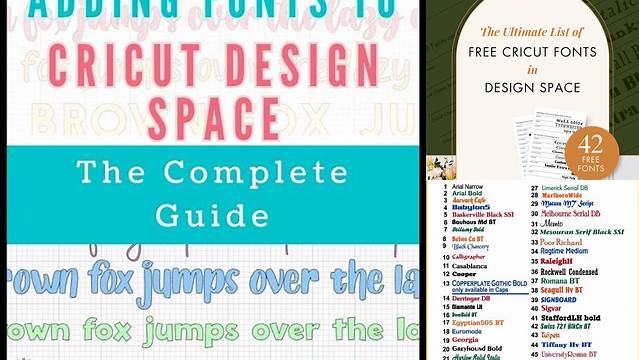
Cricut Design Space Fonts: A Complete List & Guide
Hey crafters! Ever wondered about the massive list of fonts available on Cricut Design Space? Well, buckle up, because we're diving deep into the world of Cricut fonts! Whether you're a newbie just starting out or a seasoned pro, understanding your font options is key to creating stunning projects. This guide will walk you through everything you need to know, from system fonts to Cricut Access fonts, and even how to upload your own. Let's get crafty, guys!
Understanding System Fonts in Cricut Design Space
So, what are system fonts? These are fonts already installed on your computer or device. When you open Cricut Design Space, it automatically detects these fonts and makes them available for your projects. The beauty of system fonts is that they are usually free, as you already own them! Now, let's talk about making the most of these fonts. First, consider the theme of your project. Are you creating a birthday card? A sleek, modern design? Or something whimsical? Choose a font that matches the tone. Experiment with different font pairings – sometimes a combination of a bold header font with a simpler body font can create a visually appealing contrast. Think about readability. While a super fancy script font might look gorgeous, if it's hard to read, it won't be effective. And finally, don't be afraid to get creative with font sizes, spacing, and alignment. A little tweaking can go a long way in making your design stand out. System fonts are your trusty sidekick – always there and ready to use!
Exploring Cricut Access Fonts
Best Script Fonts on Cricut Design Space
Looking for that elegant touch? Let’s dive into the best script fonts on Cricut Design Space. Script fonts are perfect for adding a touch of sophistication and personality to your projects. Whether you're creating wedding invitations, personalized gifts, or decorative home decor, a beautiful script font can make all the difference. Some popular options include "Samantha Script," "Great Vibes," and "Lavanderia." These fonts feature flowing lines, delicate curves, and a handwritten feel that adds charm to any design. When choosing a script font, consider the overall aesthetic you're going for. A formal script font is ideal for elegant occasions, while a more casual script font is perfect for everyday projects. Also, pay attention to the spacing between letters – a well-spaced script font is easier to read and looks more polished. Experiment with different script fonts to find the perfect one for your project, and don't be afraid to mix and match script fonts with other font styles for a unique and eye-catching design. With the right script font, you can transform your projects from ordinary to extraordinary!
Top Sans-Serif Fonts for Cricut Projects
Okay, guys, let's switch gears and talk about top sans-serif fonts for Cricut projects. Sans-serif fonts are known for their clean, modern look, making them a versatile choice for a wide range of projects. Unlike serif fonts, which have small decorative strokes at the ends of the letters, sans-serif fonts have a more streamlined appearance. Some popular sans-serif fonts on Cricut Design Space include "Arial," "Helvetica," and "Roboto." These fonts are easy to read, making them ideal for text-heavy projects such as labels, signs, and banners. When choosing a sans-serif font, consider the overall style of your project. A bold sans-serif font is great for making a statement, while a lighter sans-serif font is perfect for a more subtle look. Experiment with different font weights and sizes to create visual interest, and don't be afraid to mix and match sans-serif fonts with other font styles for a unique and dynamic design. With the right sans-serif font, you can create projects that are both stylish and functional!
How to Pair Fonts in Cricut Design Space
Font pairing can be tricky, but don't worry, guys – I'm here to help! The key is to create contrast while maintaining harmony. Start by choosing a dominant font for your headers or titles. This should be a font that grabs attention and reflects the overall style of your project. Then, select a secondary font for your body text. This should be a font that is easy to read and complements the dominant font. A common technique is to pair a bold sans-serif font with a more delicate script font, or vice versa. You can also pair fonts from the same font family – for example, using a bold version of a font for the header and a regular version for the body text. When in doubt, keep it simple. A clean and minimalist font pairing is often more effective than a busy and cluttered one. Experiment with different font combinations until you find one that you love, and don't be afraid to break the rules and create your own unique style! With a little practice, you'll become a font pairing pro in no time!
Using Font Filters in Cricut Design Space
Let's talk about using font filters in Cricut Design Space. These filters are your best friend when you're trying to narrow down your font choices. You can filter by font type (such as script, sans-serif, or serif), by style (such as bold, italic, or condensed), and even by language. This makes it easy to find the perfect font for your project, no matter what you're looking for. For example, if you're creating a vintage-style project, you can filter by "vintage" or "retro" to find fonts that match the theme. Or, if you're creating a project in a specific language, you can filter by language to find fonts that support the characters and glyphs you need. The font filters in Cricut Design Space are a powerful tool that can save you time and help you create stunning designs. So, next time you're feeling overwhelmed by the sheer number of fonts available, remember to use the filters to narrow down your options and find the perfect font for your project!
Kerning and Letter Spacing in Cricut Design Space
Kerning and letter spacing in Cricut Design Space can make a HUGE difference in how your text looks. Kerning refers to the space between individual letters, while letter spacing refers to the overall space between all letters in a word or phrase. Adjusting these settings can improve readability and make your text look more polished. In Cricut Design Space, you can adjust kerning and letter spacing using the font editing tools. Experiment with different settings to find the perfect balance for your font. Some fonts may require more kerning or letter spacing than others, so it's important to use your eye and make adjustments as needed. For example, script fonts often require more kerning to prevent letters from overlapping, while sans-serif fonts may benefit from a little extra letter spacing to improve readability. By mastering kerning and letter spacing, you can take your text designs to the next level and create projects that look professional and polished!
Commercial Use Fonts: What You Can and Can't Do with Cricut Fonts
This is super important, guys! Let's break down commercial use fonts: what you can and can't do with Cricut fonts. If you're planning to sell projects you create with Cricut fonts, you need to understand the licensing terms. Cricut Access fonts are generally licensed for commercial use, meaning you can use them in products you sell. However, there may be some restrictions, so it's always a good idea to check the licensing agreement. System fonts, on the other hand, may have different licensing terms. Some system fonts are free for commercial use, while others may require a commercial license. It's your responsibility to ensure that you comply with the licensing terms of any font you use. If you're unsure about the licensing terms, contact the font designer or the font foundry for clarification. Using a font without the proper license can result in legal trouble, so it's always better to be safe than sorry! When in doubt, stick to fonts that are pre-licensed for commercial use, such as those included in Cricut Access. Knowing this will keep you on the right side of the law and let you create with confidence!